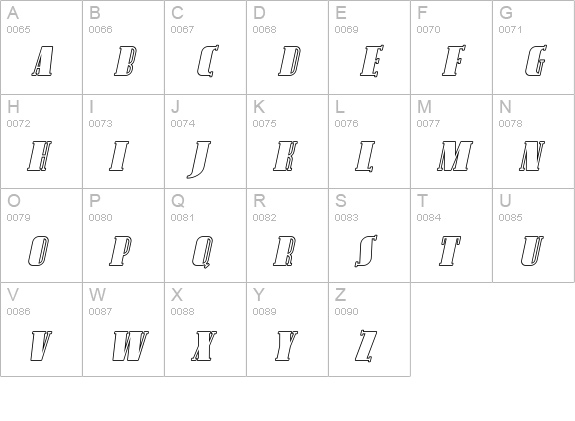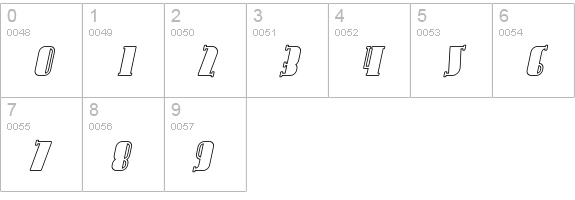
Avondale SC Outline Italic is a distinctive, italic variant in the Avondale typeface family \xE2\x80\x94 well suited to design and typography projects.
Avondale SC Outline Italic font is a sleek and stylish typeface that brings a touch of elegance to any design project. Its delicate outlines and italicized form exude a sense of sophistication and modernity, making it perfect for adding a contemporary flair to your work. This font is ideal for creating eye-catching headlines, posters, logos, and more. Its unique design stands out and captures attention, making your text visually appealing and memorable. Avondale SC Outline Italic font strikes the perfect balance between sophistication and creativity, making it a versatile choice for various design applications. Best of all, Avondale SC Outline Italic font is available for free download at FontsMarket.com. Whether you're a professional designer or a hobbyist looking to elevate your projects, this font is a must-have addition to your typography collection. Download it now and start exploring the endless creative possibilities it offers!